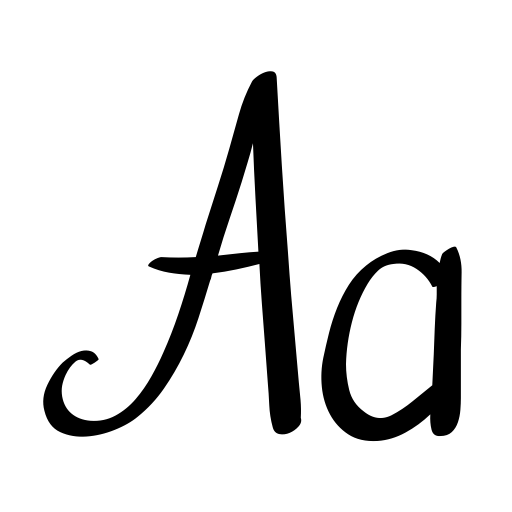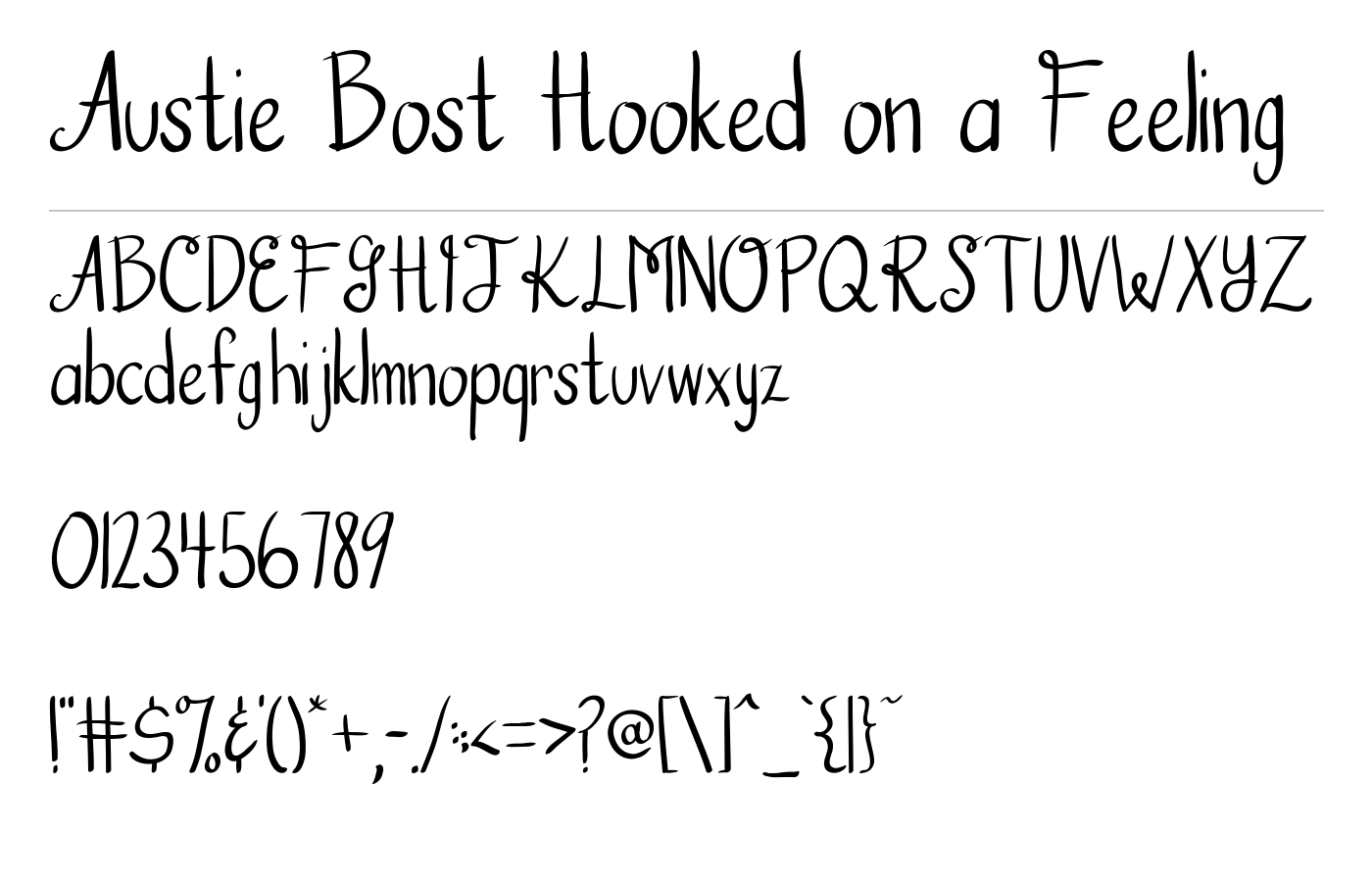
Austie Bost Hooked on a Feeling is a playful and quirky handwritten sans serif font characterized by its tall, narrow letterforms and irregular, organic stroke style that gives it a personal, whimsical feel. Its light weight and unique character details make it ideal for creative projects, children's designs, or casual branding where a friendly and informal tone is desired. This font works especially well in headlines, logos, and packaging that aim to convey a sense of fun and approachability.